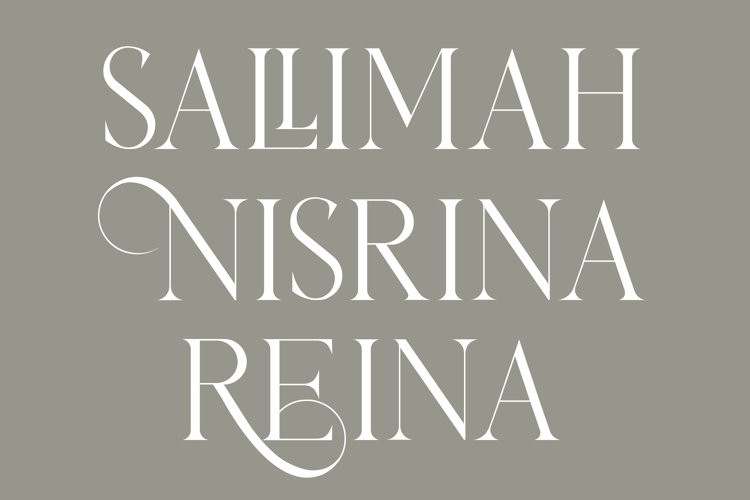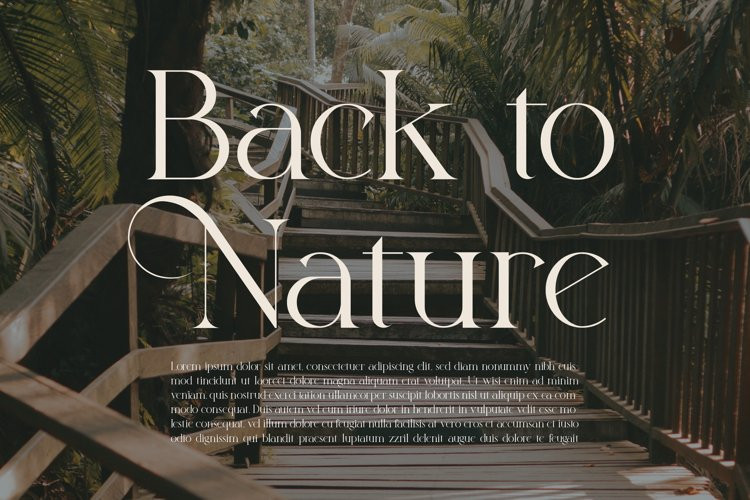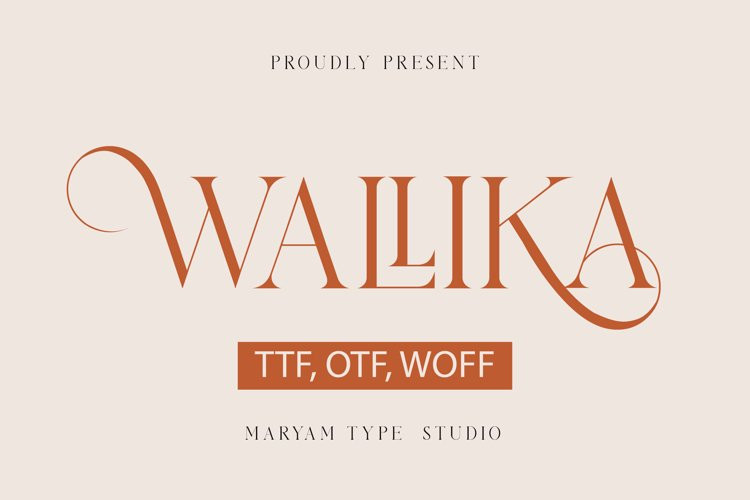
Wallika Font
Wallika FontWe are proud to present Wallika Modern Serif Font, created by Maryamtype Studio, a Modern serif typeface that has a unique modern style & look. This typeface is perfect for elegant & luxurious logos, book or movie title designs, fashion brands, magazines, clothing, fonts, quotes and more.